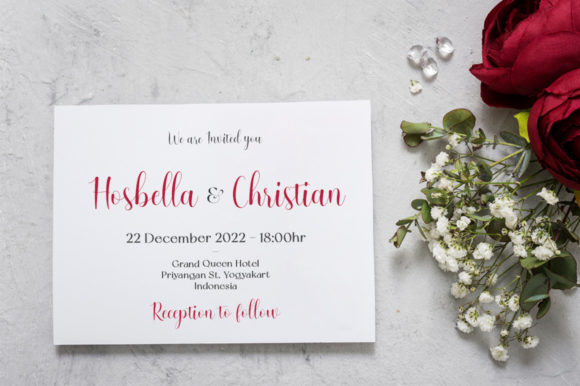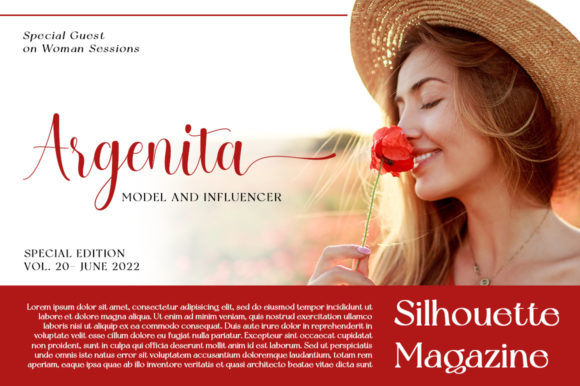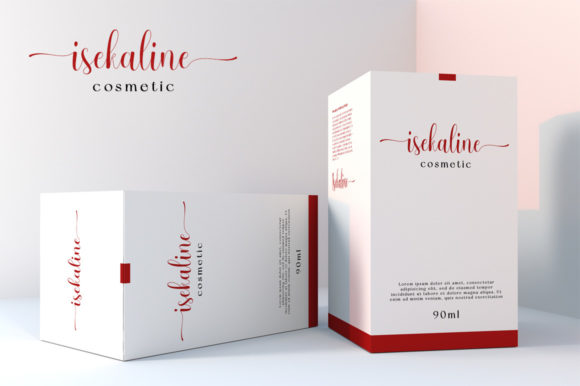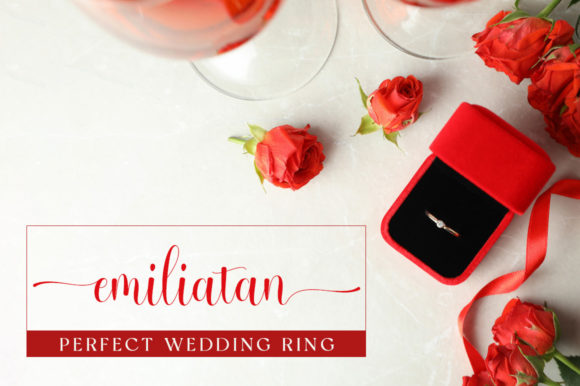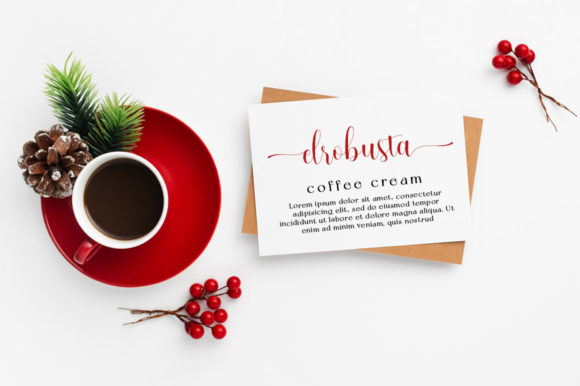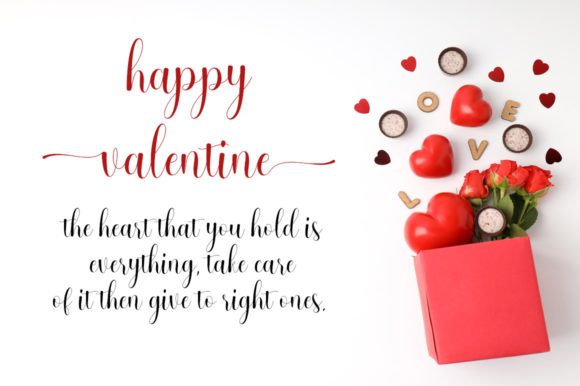
Introducing Anselma Font: A Dazzling Script Font for Designers and Crafters
Are you tired of using the same old fonts for your design projects? Look no further than Anselma Font, a stunning script font that is sure to take your designs to the next level. In this article, we’ll dive into the features and benefits of Anselma Font, and explore why it’s a must-have for designers and crafters.
What is Anselma Font?
Anselma Font is a beautifully crafted script font that is designed to add a touch of elegance and sophistication to any design project. This font is meticulously crafted with intricate details and a unique style that sets it apart from other script fonts on the market.
One of the standout features of Anselma Font is its PUA (Private Use Area) encoding, which allows users to access a wide range of glyphs and ligatures with ease. This means that designers and crafters can easily create stunning text-based designs that are both visually appealing and highly customizable.
Key Features of Anselma Font
- PUA Encoded: Anselma Font is PUA encoded, making it easy to access a wide range of glyphs and ligatures.
- Highly Detailed: This font is meticulously crafted with intricate details that set it apart from other script fonts.
- Neatly Crafted: Anselma Font is designed to be clean and elegant, making it perfect for a wide range of design projects.
- Highly Customizable: With PUA encoding, designers and crafters can easily customize their text-based designs to suit their needs.
Who is Anselma Font for?
Anselma Font is perfect for designers and crafters who are looking for a unique and elegant script font to add to their collection. Whether you’re working on a branding project, creating social media graphics, or designing a website, Anselma Font is sure to impress.
This font is also ideal for:
- Graphic Designers: Anselma Font is perfect for graphic designers who need a high-quality script font for their design projects.
- Crafters: Crafters who work with paper, fabric, or other materials will love the elegant and sophisticated look of Anselma Font.
- Web Designers: Anselma Font can be used to create stunning website headers, titles, and other text-based elements.
To get the most out of Anselma Font, be sure to experiment with different glyphs and ligatures to create unique and visually appealing designs. You can also combine Anselma Font with other fonts to create a stunning font pairing.
Tips and Tricks for Using Anselma Font
- Experiment with Different Sizes: Anselma Font looks great in a variety of sizes, so be sure to experiment to find the perfect size for your design.
- Play with Glyphs and Ligatures: Take advantage of Anselma Font’s PUA encoding to create stunning text-based designs that are both visually appealing and highly customizable.
- Combine with Other Fonts: Anselma Font pairs well with a variety of other fonts, so be sure to experiment to find the perfect font pairing for your design.
Anselma Font is a dazzling script font that is sure to take your design projects to the next level. With its PUA encoding, intricate details, and elegant style, this font is perfect for designers and crafters who are looking for a unique and sophisticated script font.